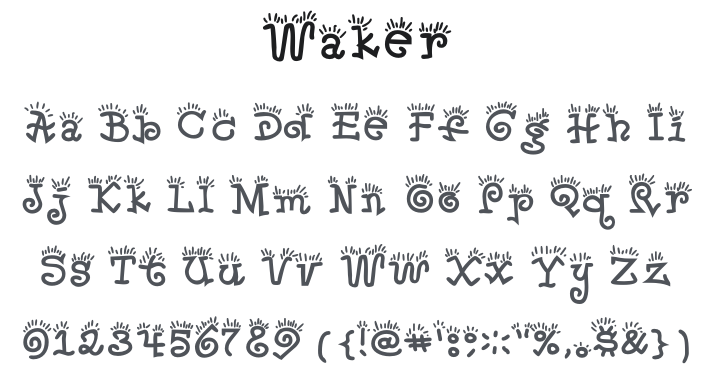
Waker Font
About Waker
Waker is a bold, bouncy cartoon display typeface where every letterform sprouts little radiating lines from its top — like each character just jolted awake, bristling with sleepy energy and early-morning excitement. The chunky, rounded letterforms feel warm and playful beneath all the fizzing. Perfect for children's branding, breakfast food packaging, morning lifestyle designs, comic titles, and any headline needing irresistibly cheerful, wide-awake personality.